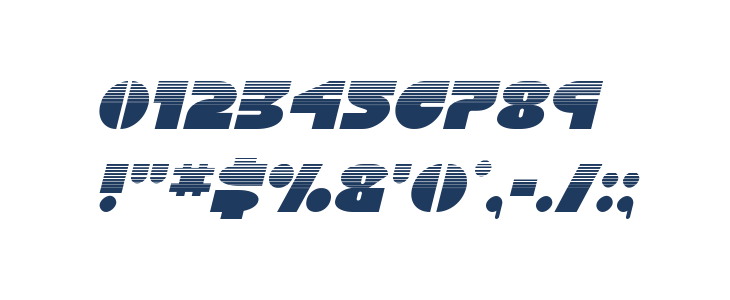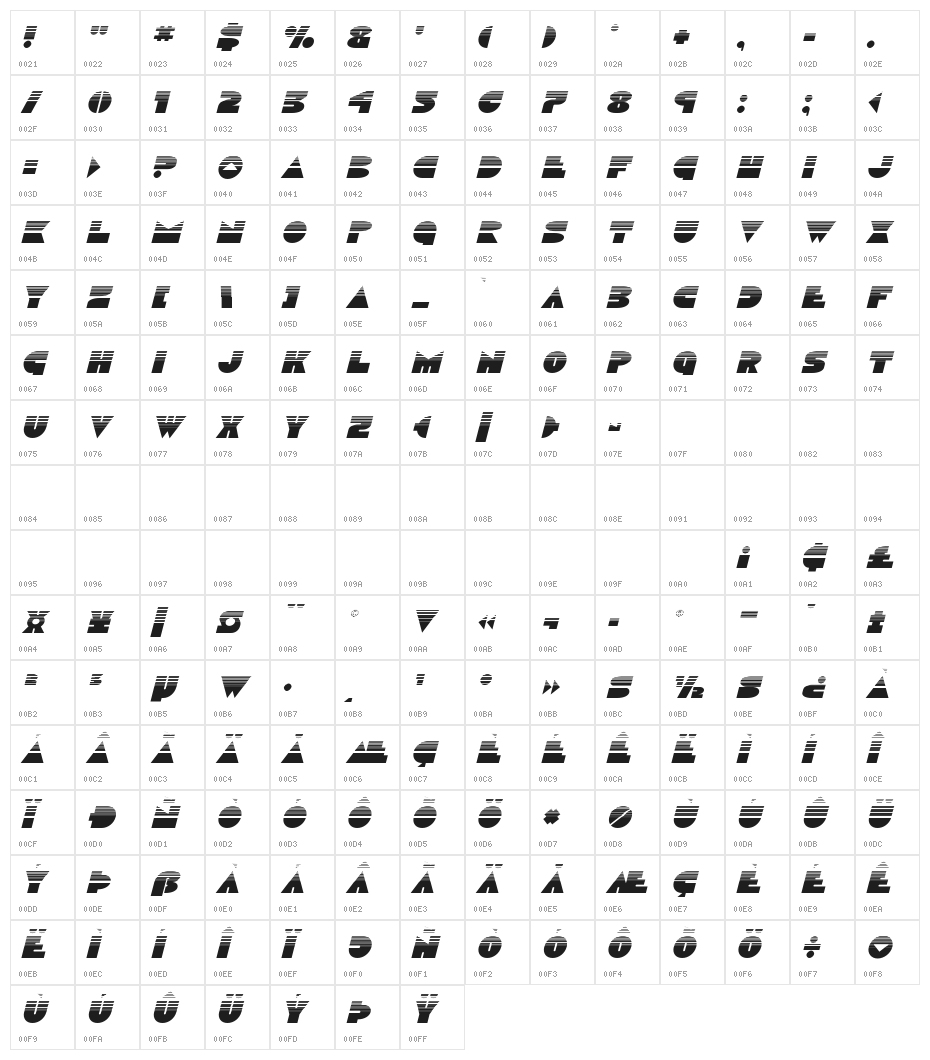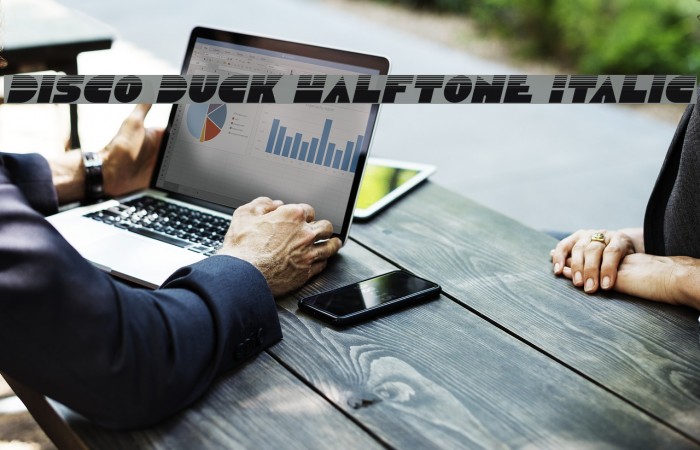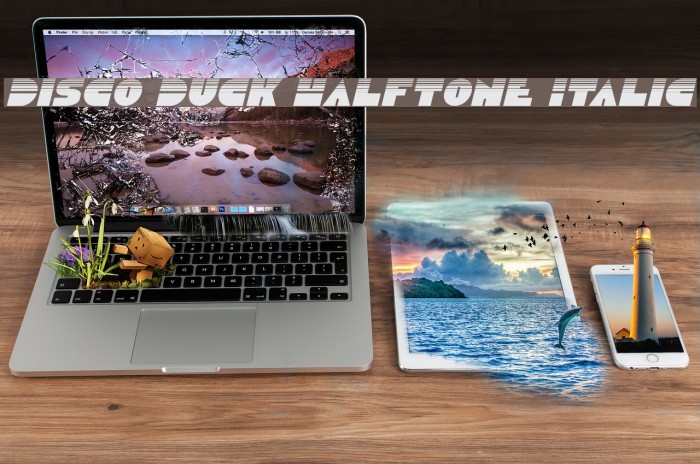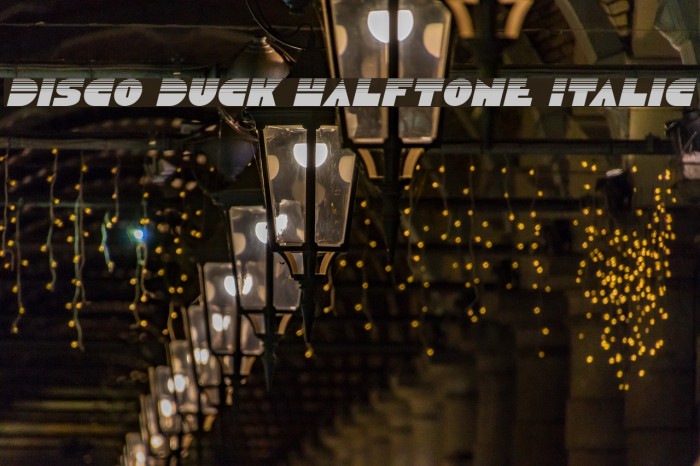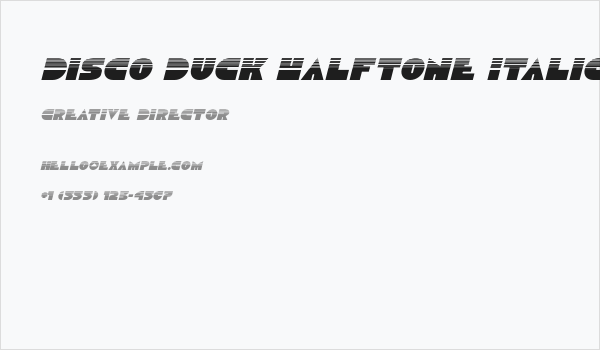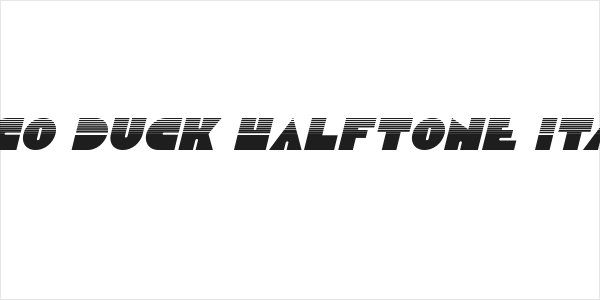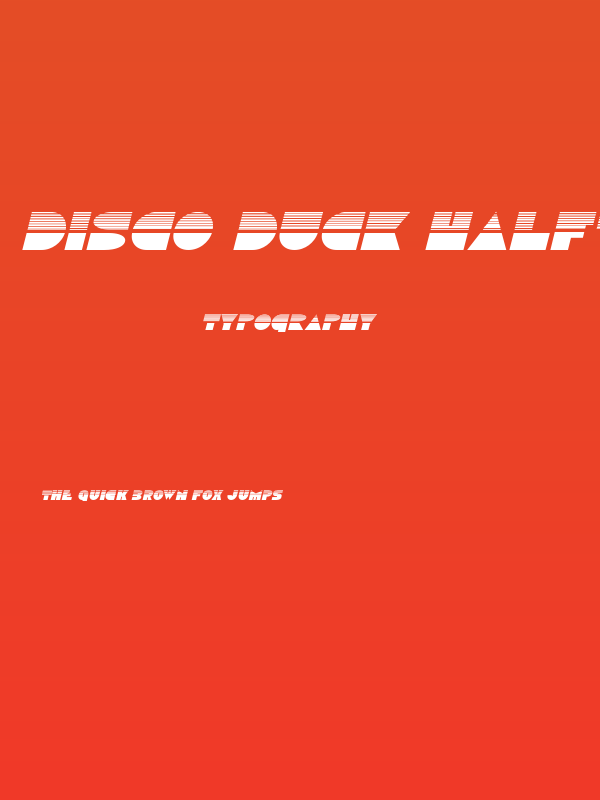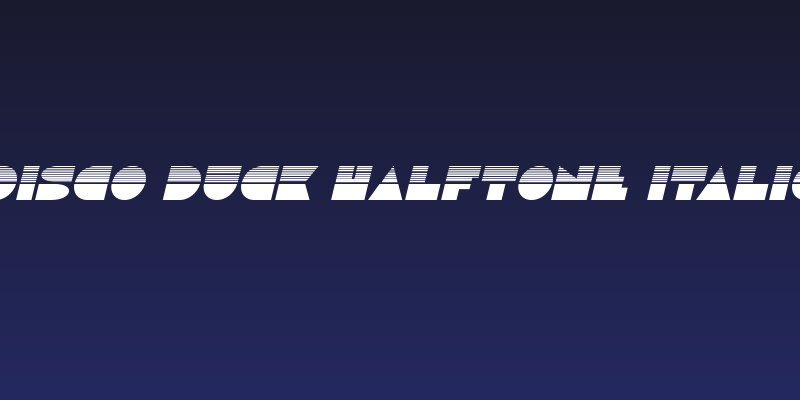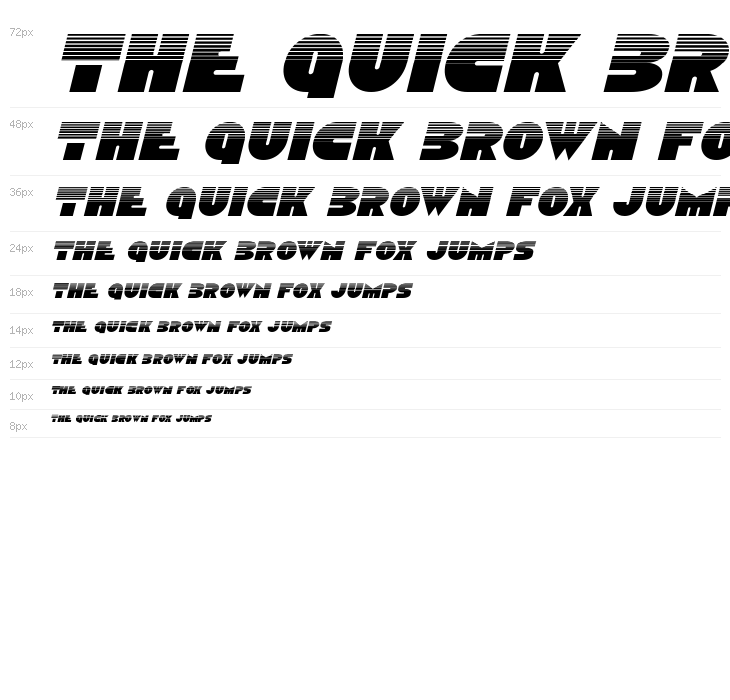
Disco Duck Halftone Italic Font
Disco Duck Halftone Italic Description
This font features a bold and dynamic style with a halftone effect that gives it a unique, retro-futuristic appearance. The characters are italicized, adding a sense of motion and energy. The uppercase and lowercase letters maintain a consistent geometric structure, with sharp angles and clean lines. The numbers and special characters follow the same design principles, ensuring uniformity across all glyphs. The halftone pattern within each character creates a sense of depth and texture, making it ideal for eye-catching designs.
| Overall Style | Retro-Futuristic |
| Proposed Projects | Ideal for music album covers, event posters, retro-themed branding, and dynamic logo designs. |